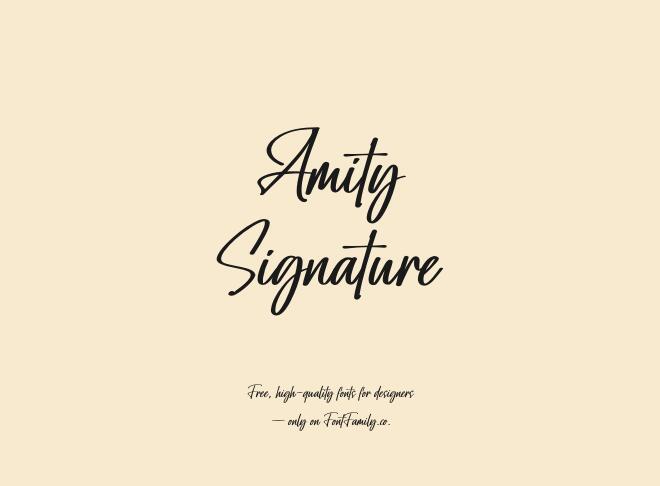
Amity Signature Font
Amity Signature Font is a unique, handwritten style typeface designed by TypoFoundry. Its elegant and flowing letterforms, inspired by signature and calligraphic styles, make it a perfect choice for logos, wedding invitations, stationery design, and personal branding. This font stands out for its unique charm and elegance, making it a go-to choice for designers who want to add a touch of personal flair to their projects. Compared to other fonts, Amity Signature Font offers more fluidity and sophistication. The font is easy to read, which makes it versatile for various design projects. Its uniqueness lies in its ability to blend simplicity with elegance, adding an intimate, personalized touch to your design. It's a free font for personal use, making it a must-have for every designer's toolkit.